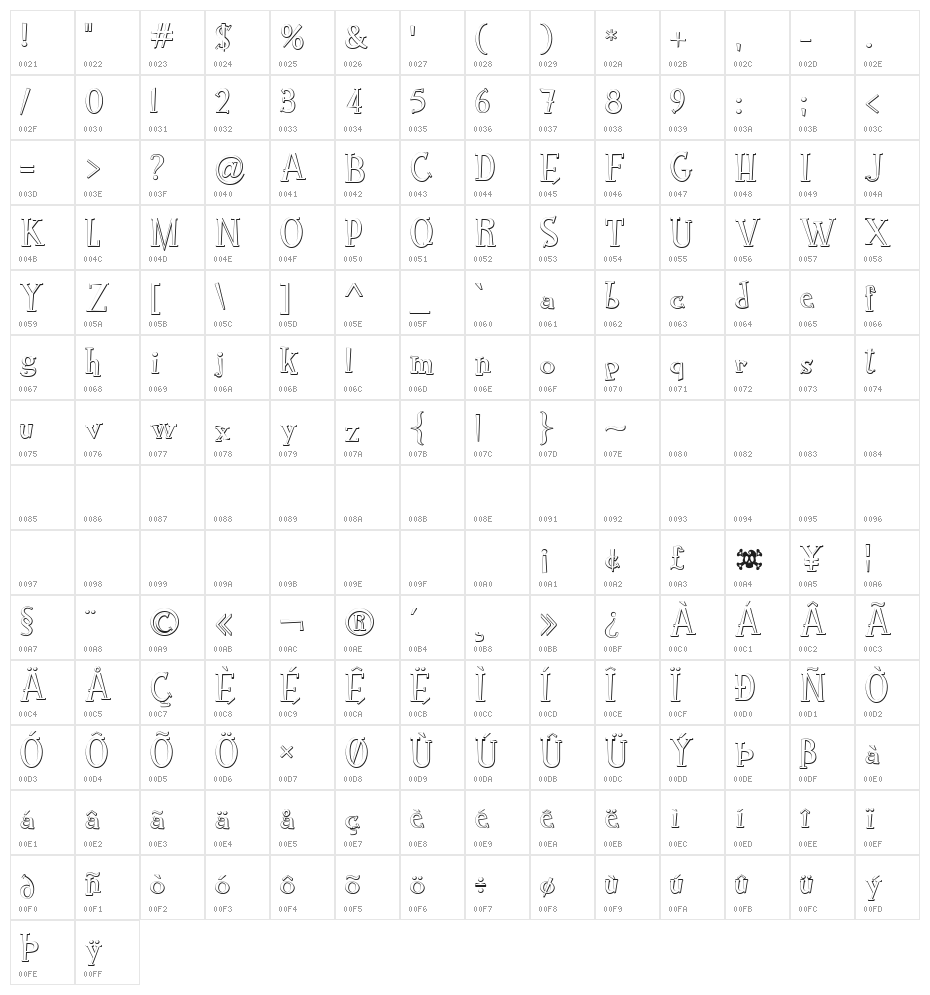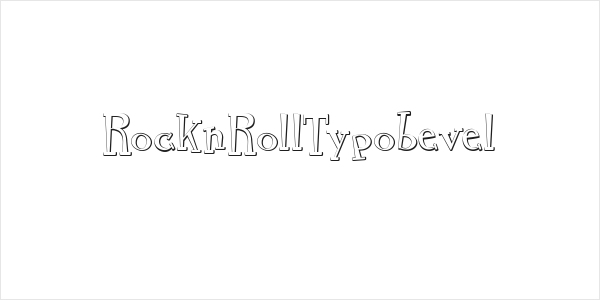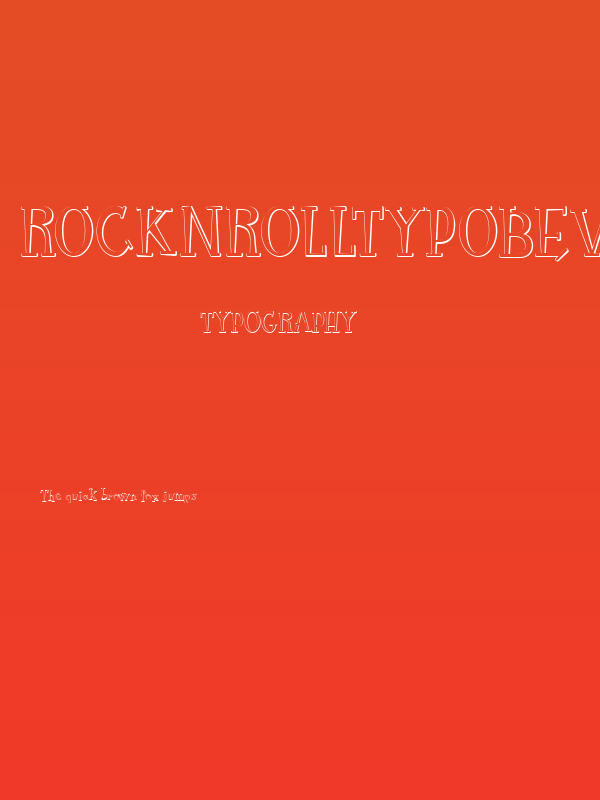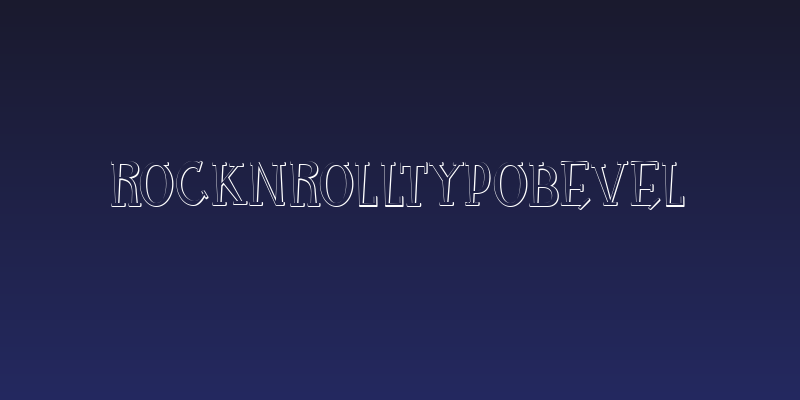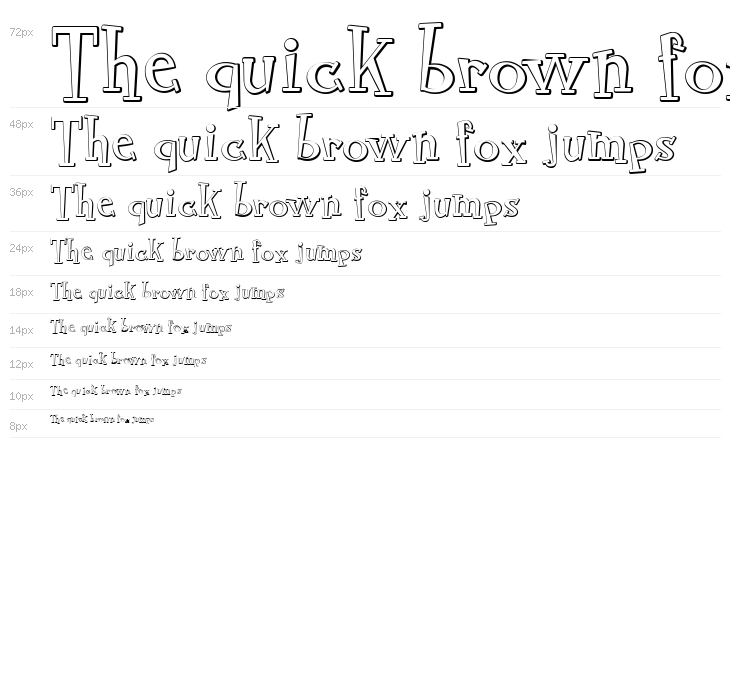
RocknRollTypobevel Font
RocknRollTypobevel Description
This font features a bold, playful design with a distinct outline that gives it a three-dimensional effect. The uppercase letters are tall and slightly narrow, while the lowercase letters have a whimsical, almost cartoonish quality. The numerals are consistent with the overall style, maintaining the bold outline and playful curves. Special characters are included, each with the same outlined, beveled appearance. This font is ideal for creating eye-catching headlines or logos that require a fun and dynamic look.
| Proposed Projects | Ideal for music event posters, children's book covers, playful branding, and creative logos. |